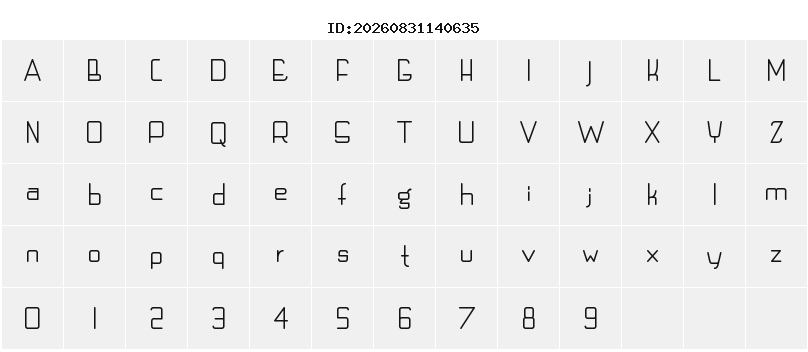
Techno LCD Preview
• Designer: Ishtiaq Ali
About Techno LCD.ttf
Techno LCD.ttf is a modern, elegant sans-serif font designed for ultimate readability and visual harmony. Perfect for branding, headlines, web design, and print materials.